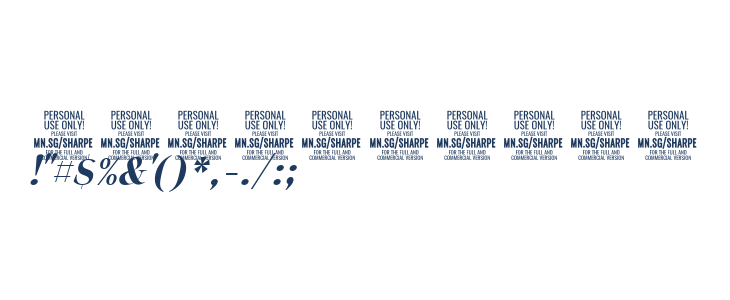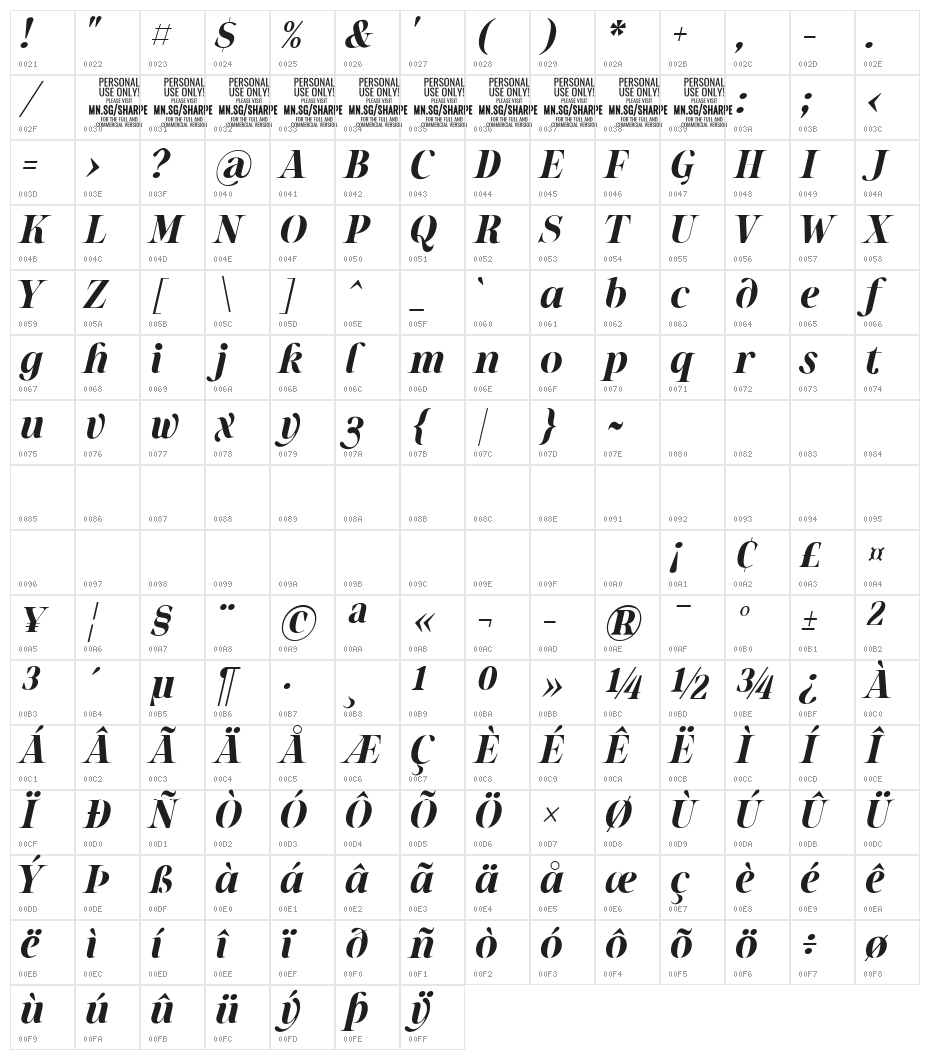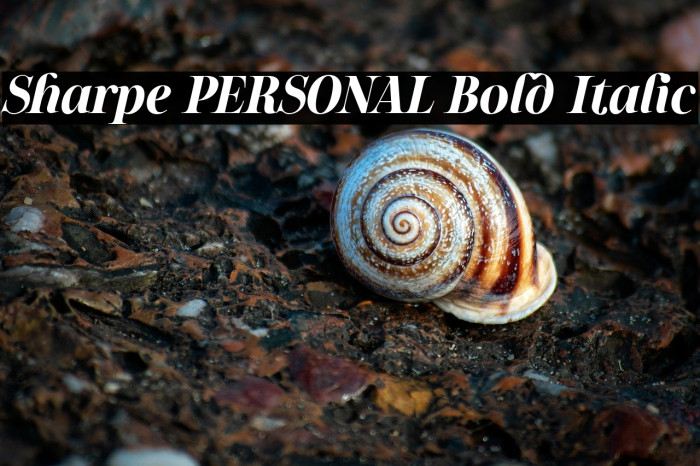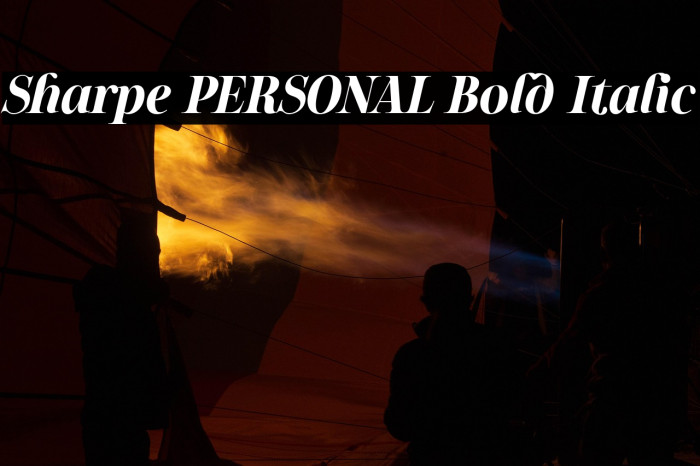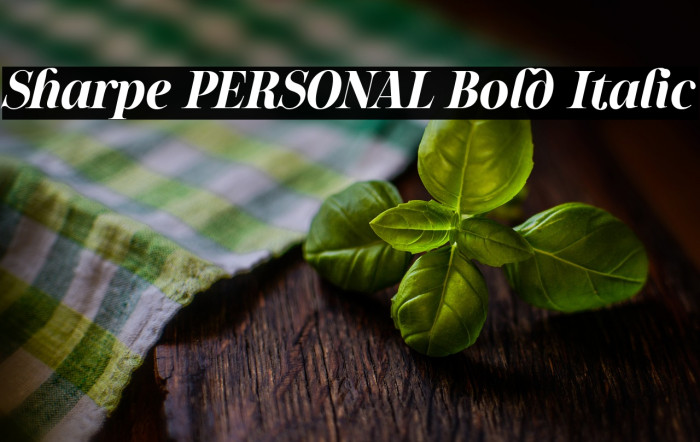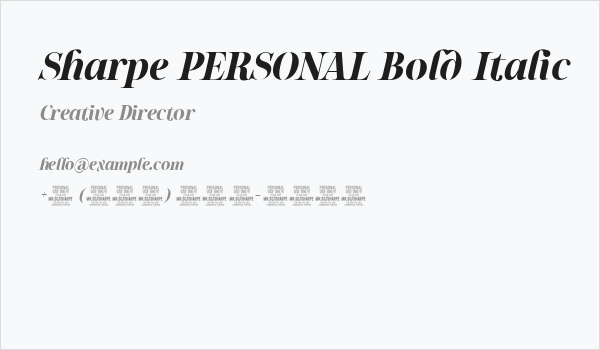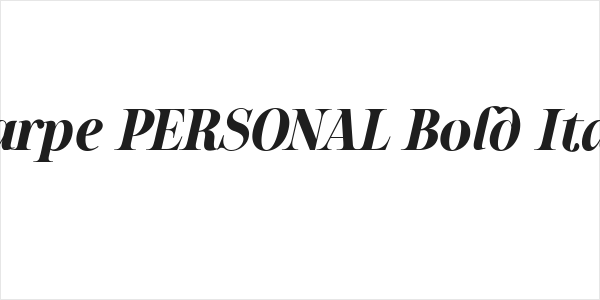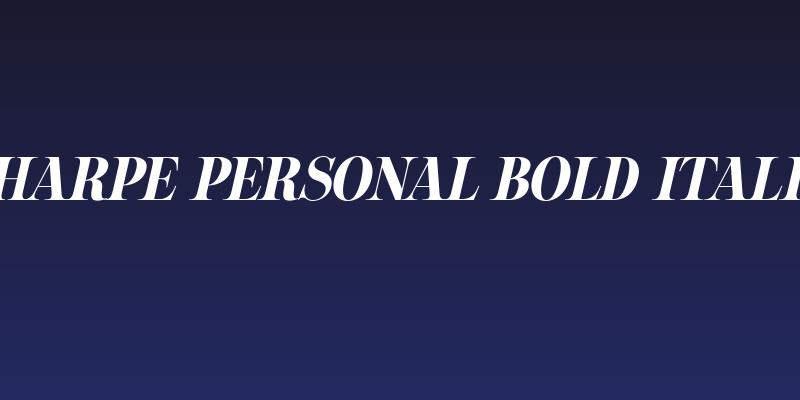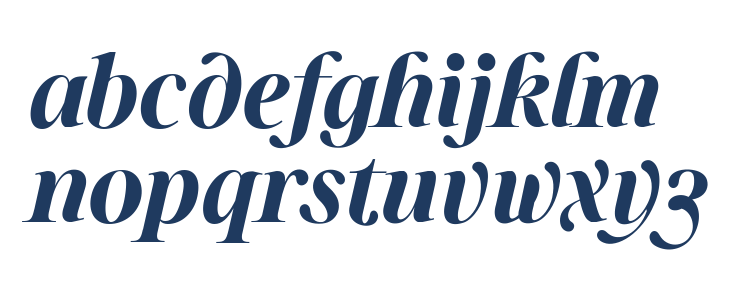
Sharpe PERSONAL Bold Italic Font
Sharpe PERSONAL Bold Italic Description
This font features a bold and italicized style, characterized by its strong and dynamic presence. The uppercase letters are elegantly slanted, giving a sense of motion and sophistication. The lowercase letters maintain a consistent flow, complementing the uppercase with their smooth curves and sharp edges. The numerals and special characters are designed to match the overall aesthetic, providing a cohesive look. The font's bold weight and italic slant make it suitable for attention-grabbing headlines and impactful designs. Its high contrast between thick and thin strokes adds to its dramatic appearance, making it ideal for projects that require a touch of elegance and assertiveness.
Proposed ProjectsIdeal for branding, headlines, posters, and editorial design.